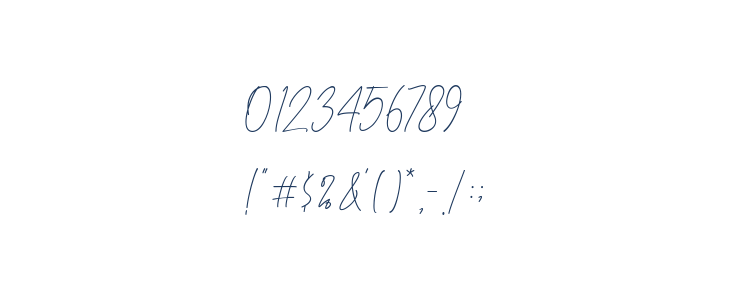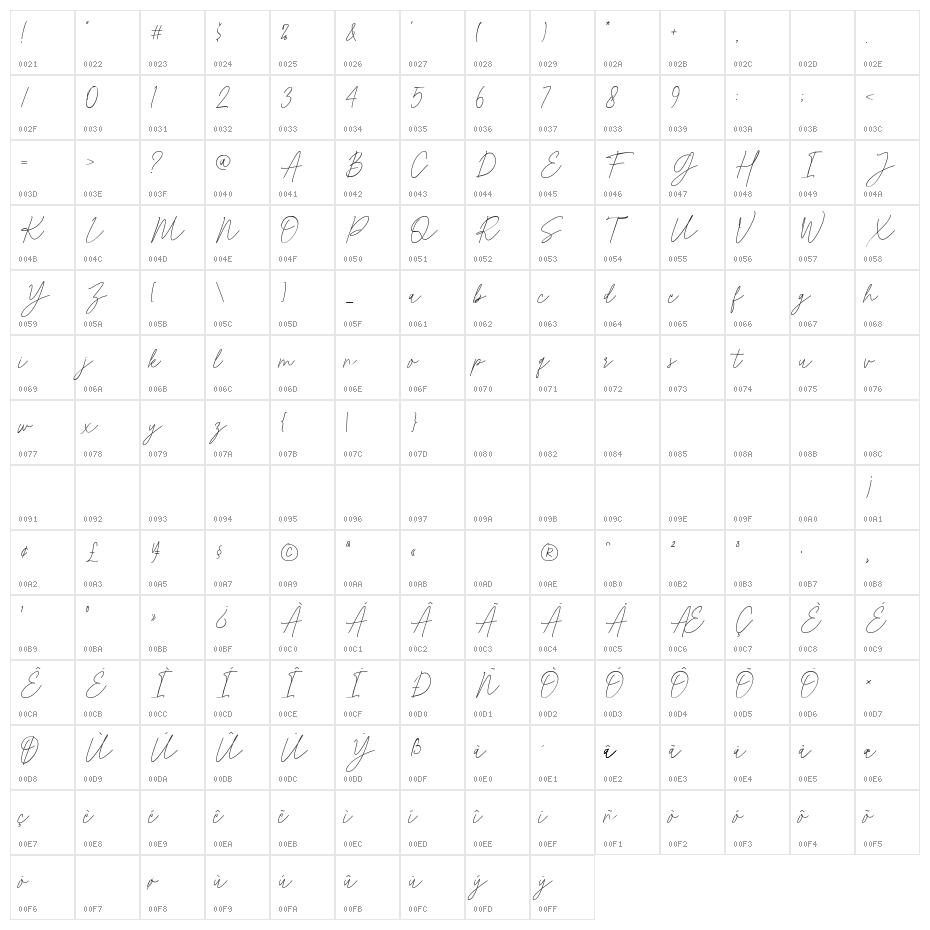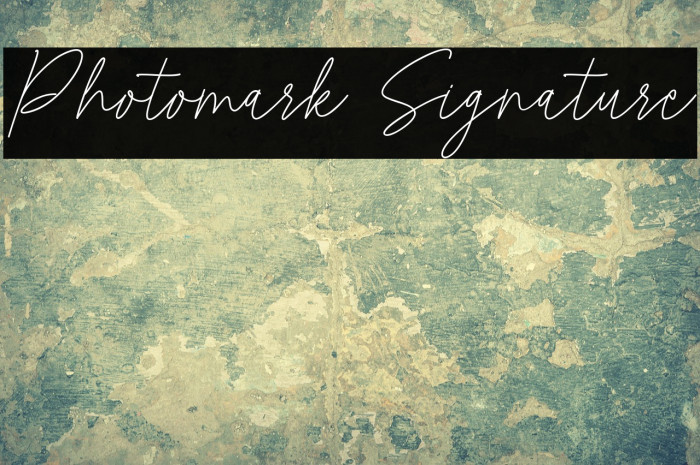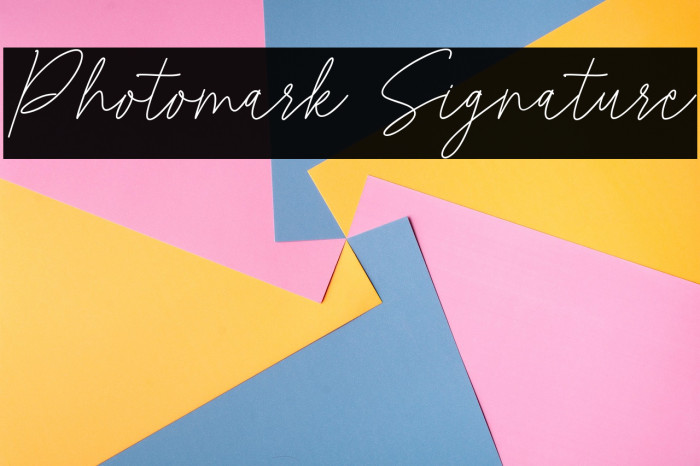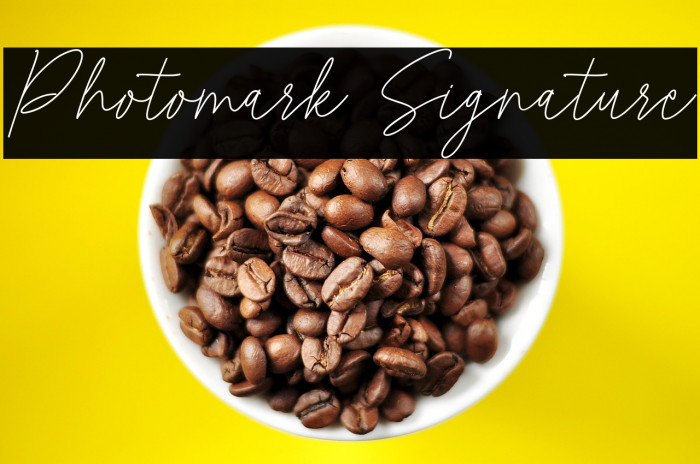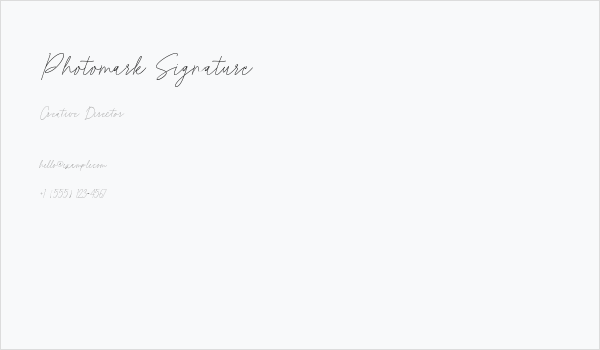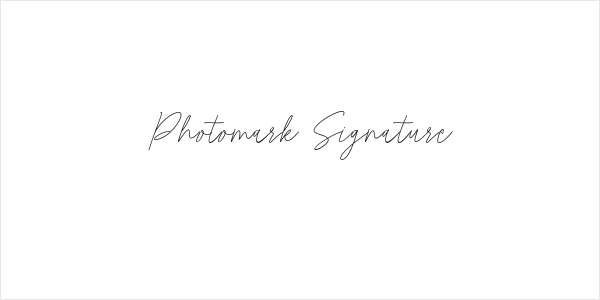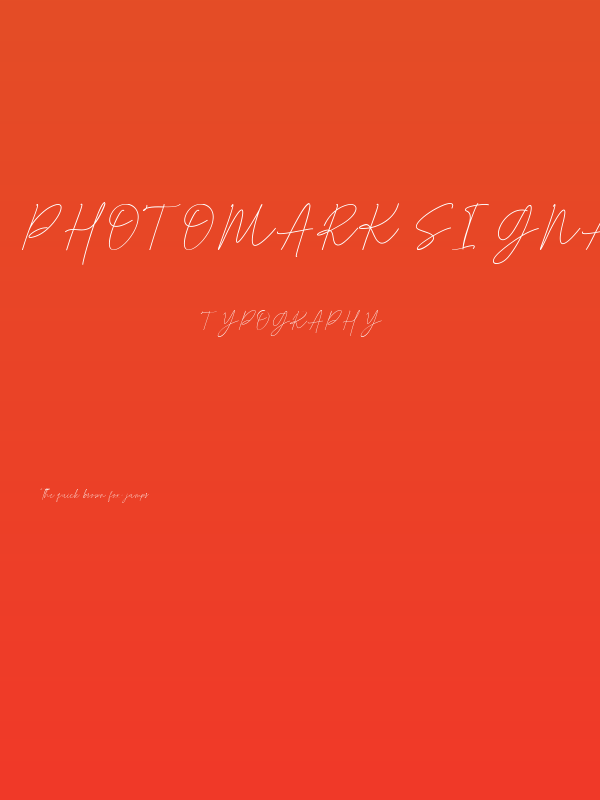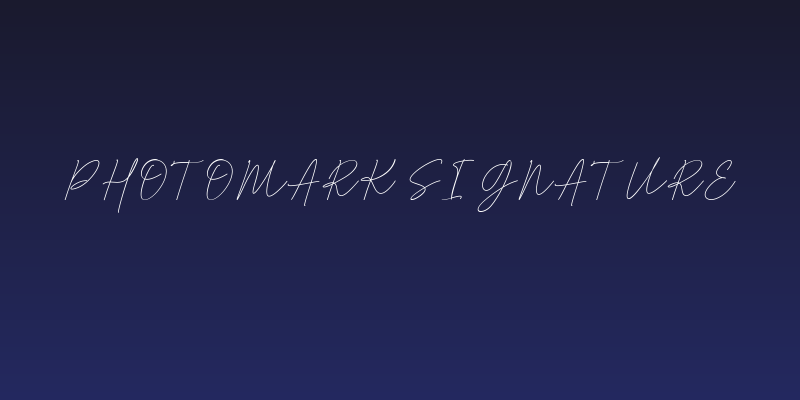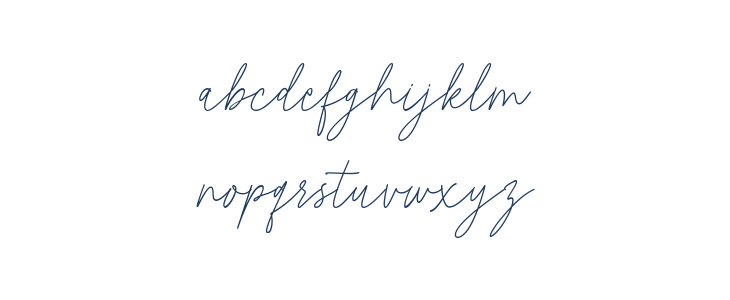
Photomark Signature Font
Photomark Signature Description
This font exudes elegance and sophistication with its fluid, cursive style. Each letter is crafted with a delicate touch, featuring thin, graceful lines that mimic the natural flow of handwriting. The uppercase letters are slightly taller and more pronounced, adding a touch of formality, while the lowercase letters maintain a consistent, flowing rhythm. The numerals and special characters are seamlessly integrated, maintaining the font's overall aesthetic. This font is perfect for projects that require a personal, handwritten touch, such as invitations, greeting cards, or branding materials.
| Overall Style | Elegant, Handwritten |
| Proposed Projects | Ideal for wedding invitations, personal branding, greeting cards, and elegant stationery. |